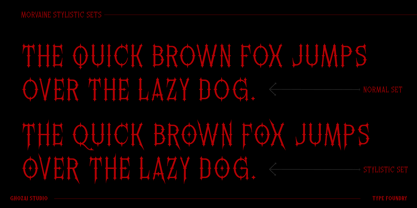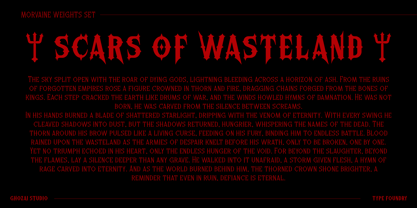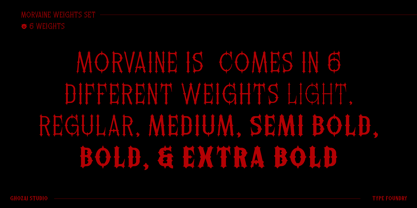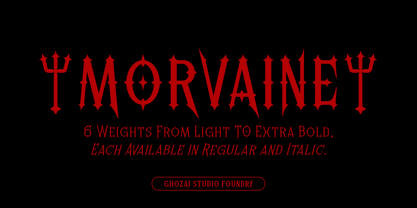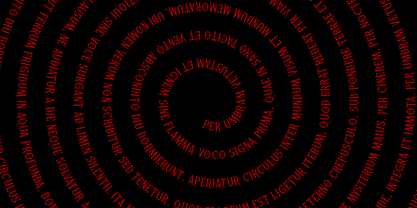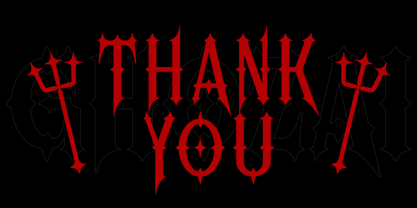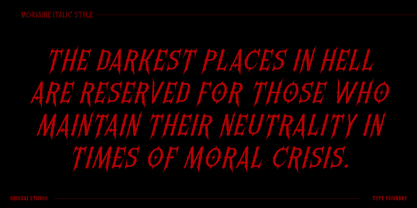
Morvaine
by Ghozai Studio
The Morvaine Font Family was designed by Manzur Ghozaali and published by Ghozai Studio. Morvaine contains 12 styles and family package options. More about this family
Morvaine is a powerful metal font family distinguished by its jagged edges. Drawing inspiration from the sharp, piercing lines of thorns and the unique shapes of a needle, this serif design achieves a harmonious balance between raw, rebellious energy and effortless readability. Available in weights ranging from light to extra bold, with both regular and italic options, Morvaine provides extensive multilingual support, making it the ultimate choice for high-impact projects. This font is perfect for a variety of applications, including music festival branding, band merchandise, bold headlines, logos, and posters. Its unique and striking aesthetic ensures that your designs will always stand out, offering the ideal visual language for genres such as rock and roll, metal, and alternative music. Beyond the music scene, its eye-catching and legible style is also well-suited for apparel, signage, and any display typography that aims to create a strong, memorable statement.